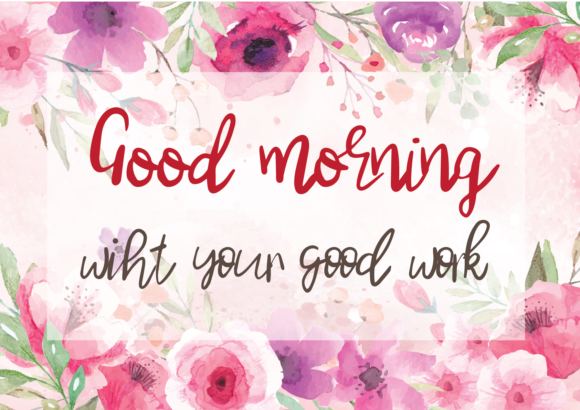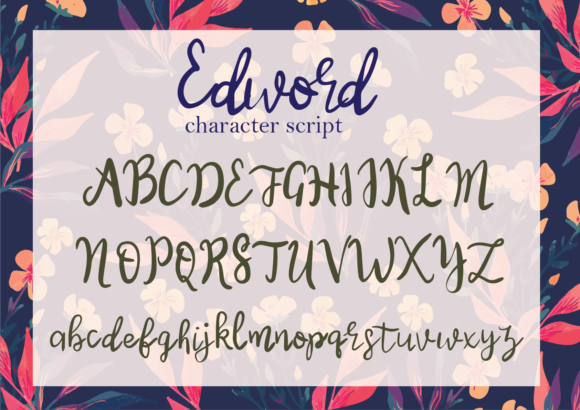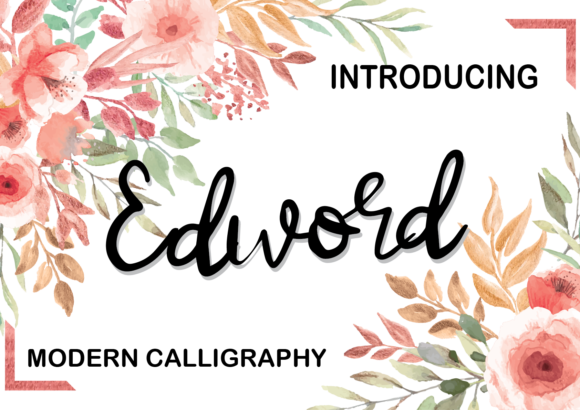
Edword Font: A Tender and Romantic Script with a Playful Twist
Are you a designer or crafter looking for a font that exudes love, warmth, and playfulness? Look no further than Edword Font! This beautiful script font is designed to capture the essence of romance and whimsy, making it perfect for a variety of creative projects. In this article, we’ll dive into the unique charm of Edword Font and explore its features, uses, and benefits.
What is Edword Font?
Edword Font is a script font that combines elegance with playfulness. Its tender and romantic feel makes it ideal for projects that require a touch of warmth and personality. The font features flowing curves, subtle swashes, and a dash of whimsy, giving it a unique and captivating charm.
Key Features of Edword Font
- Unique letterforms: Edword Font boasts distinctive letterforms that are both elegant and playful. Each letter is carefully crafted to create a sense of movement and fluidity.
- Swashes and flourishes: The font includes a range of swashes and flourishes that add a touch of sophistication and whimsy to your designs.
- Playful twist: Edword Font has a playful twist that sets it apart from other script fonts. Its subtle quirks and irregularities give it a charming, handmade feel.
- High-quality design: Edword Font is designed with precision and attention to detail, ensuring that it looks great in a variety of sizes and applications.
Uses for Edword Font
Edword Font is versatile and can be used for a wide range of creative projects, including:
- Wedding and event invitations: The font’s romantic and elegant feel makes it perfect for wedding invitations, save-the-date cards, and other event materials.
- Branding and packaging: Edword Font’s unique charm and playfulness make it an excellent choice for branding and packaging projects that require a touch of personality.
- Stationery and greeting cards: The font’s whimsical feel and flowing curves make it ideal for stationery and greeting card designs.
- Digital and social media graphics: Edword Font’s high-quality design ensures that it looks great in digital and social media graphics, including Instagram posts, Facebook graphics, and more.
Benefits of Using Edword Font
So why choose Edword Font for your next project? Here are just a few benefits:
- Adds a touch of personality: Edword Font’s unique charm and playfulness can help your designs stand out and add a touch of personality.
- Easy to read and use: Despite its elegant and cursive feel, Edword Font is surprisingly easy to read and use, making it perfect for a variety of applications.
- Highly versatile: Edword Font can be used for a wide range of creative projects, from wedding invitations to branding and packaging.
- Supports multiple languages: Edword Font supports multiple languages, making it a great choice for international projects.
In conclusion, Edword Font is a tender and romantic script with a playful twist that’s sure to capture your heart. Its unique charm, elegant letterforms, and whimsical feel make it perfect for a variety of creative projects. Whether you’re a designer, crafter, or DIY enthusiast, Edword Font is an excellent choice for adding a touch of personality and warmth to your designs. So why not fall in love with Edword Font and see how it can elevate your next project?
- Experiment with different sizes and styles: Play around with different sizes and styles to see how Edword Font looks in different applications.
- Pair with other fonts: Edword Font pairs well with a range of other fonts, so don’t be afraid to experiment with different combinations.
With its unique charm, elegant letterforms, and playful twist, Edword Font is sure to become a favorite in your design toolkit. So why wait? Fall in love with Edword Font today and start creating beautiful, eye-catching designs that capture the essence of romance and whimsy!